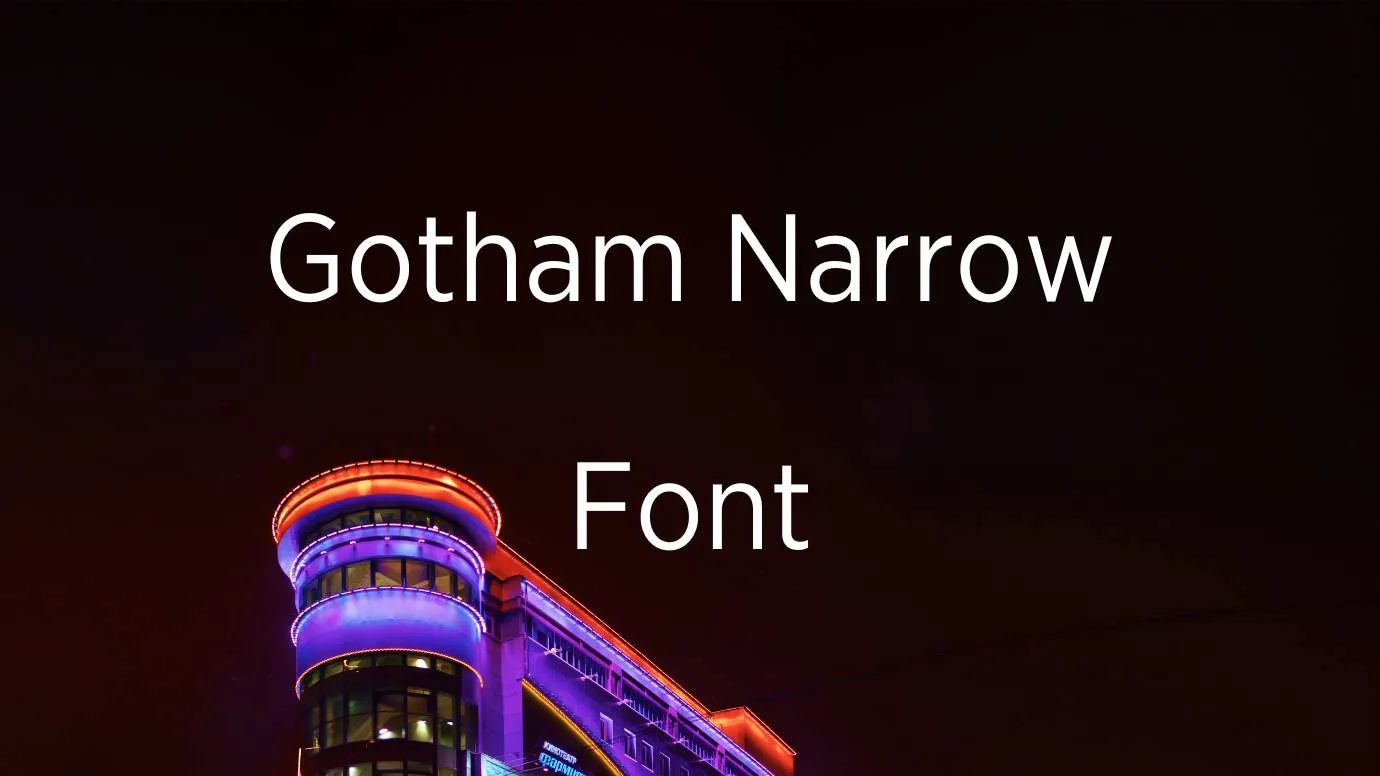
Gotham Narrow is a beautiful and modern web font that is perfect for web designs. You can easily create sites with this lovely font family.
This Gotham pro narrow bold font is clearly for those who crave for the class of their design. For a contrasting yet elegant pairing, consider using Raleway font alongside it.
| Name | Gotham Narrow Font |
| Designer | Tobias Frere-Jones |
| Type | Sans-serif |